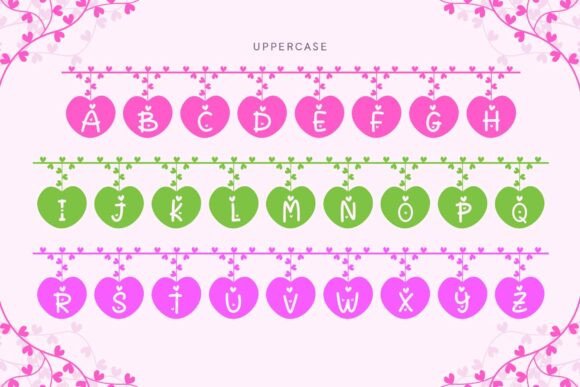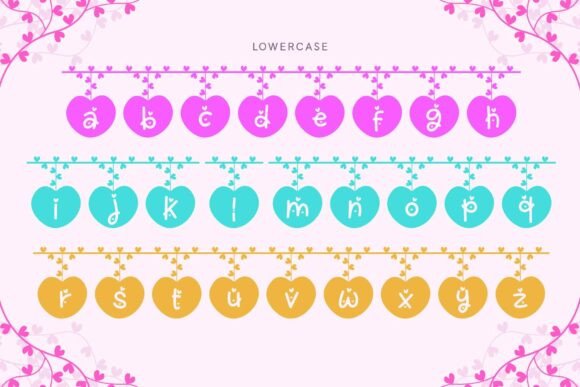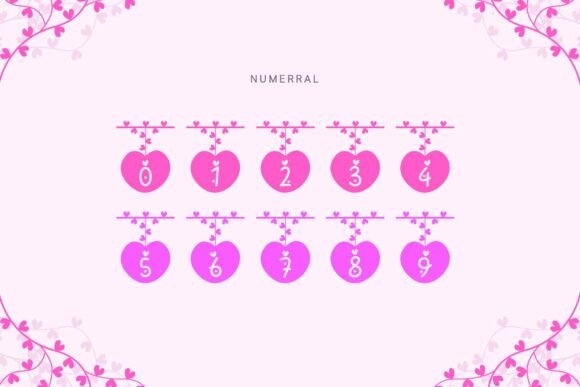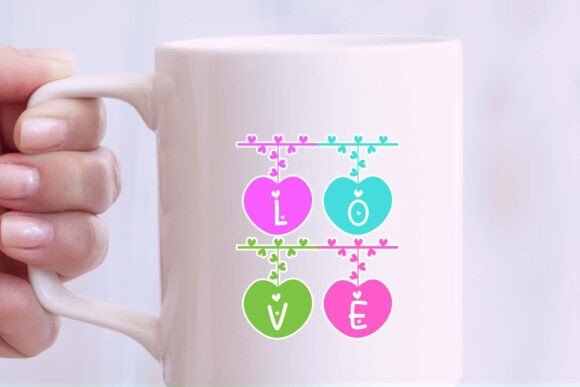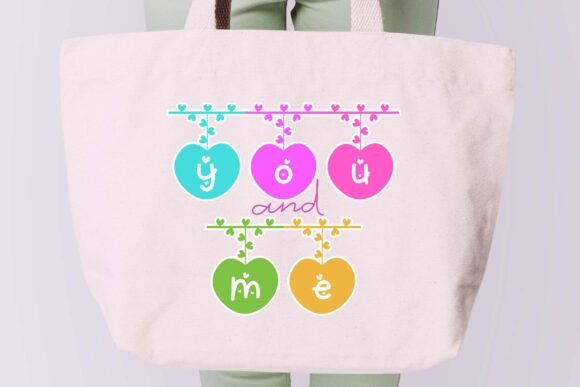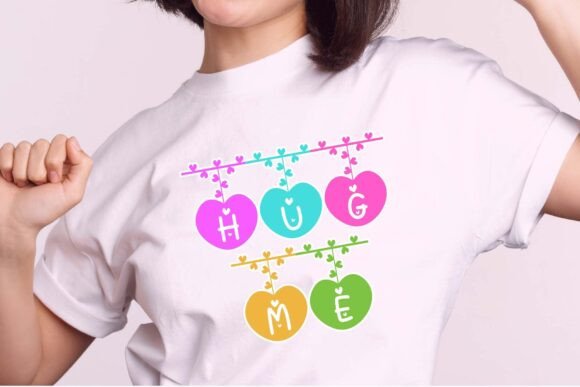
Introduction to Farm Love Font
Have you ever stumbled upon a design project that perfectly captures the essence of a serene countryside morning? The sun rises over a lush green field, and the gentle rustle of leaves fills the air. As a designer, you know the feeling of being inspired by the simple, yet beautiful, moments in life. This is exactly what the Farm Love Font aims to evoke – a sense of warmth and coziness that’s hard to find in our fast-paced digital world.
As a valuable design resource, the Farm Love Font is a high-quality, free download that’s perfect for any creative project. With its transparent background and charming, handwritten style, this typeface is a must-have for designers looking to add a touch of the countryside to their designs. Whether you’re working on a project for a rural-themed blog, a farm-to-table restaurant, or simply a personal creative endeavor, the Farm Love Font is sure to bring a sense of authenticity and charm to your work.
Key Features of Farm Love Font
• High-quality vector design ideal for creative projects, such as digital art and print materials.
• Comes with a transparent background, allowing for easy customization and versatility in various design applications.
• Unique, hand-drawn design elements that add a touch of personality to any creative project.
• Perfect for use in farm-themed designs, love-themed designs, or any project that requires a rustic, whimsical feel.
Honest Review: Farm Love Font
I recently stumbled upon the Farm Love Font and was eager to give it a try for my latest creative project. As a designer, I’m always on the lookout for high-quality design resources to elevate my work. Fortunately, this font didn’t disappoint.
• ✨ Unique character set: The Farm Love Font boasts a charming, handwritten style that’s perfect for adding a personal touch to your designs.
• ✨ High-quality vector graphics: The font’s vector format makes it easy to scale and manipulate without losing any quality.
• ✨ Transparent background: The font’s transparent background allows for seamless integration with any design element, giving me more creative freedom.
• ⚠️ Limited language support: The Farm Love Font only includes support for a limited number of languages, which may be a concern for designers working on global projects.
• ⚠️ Not ideal for body text: While the font is perfect for headings and titles, it may not be the best choice for body text due to its informal, handwritten style.
Overall, I’m impressed with the Farm Love Font’s unique style and high-quality design. While it may have some limitations, it’s a fantastic resource for designers working on creative projects that require a personal touch.
Transparent Background and Customization
The Farm Love Font has a transparent background, making it perfect for use on images with complex backgrounds. You can also customize the font to fit your design by adjusting the color and style to match your brand or creative project.
Tips for Getting the Most Out of Farm Love Font
For the best results, use the Farm Love Font on a high-quality image or design. Experiment with different font sizes and styles to create a visually appealing design. You can also combine the font with other design elements, such as graphics and photos, to create a unique and eye-catching design.
The Farm Love Font is perfect for use in a variety of creative projects, including wedding invitations, baby shower invitations, and farm-themed designs. It’s also a great resource for designers looking for a high-quality, free font to use in their designs.